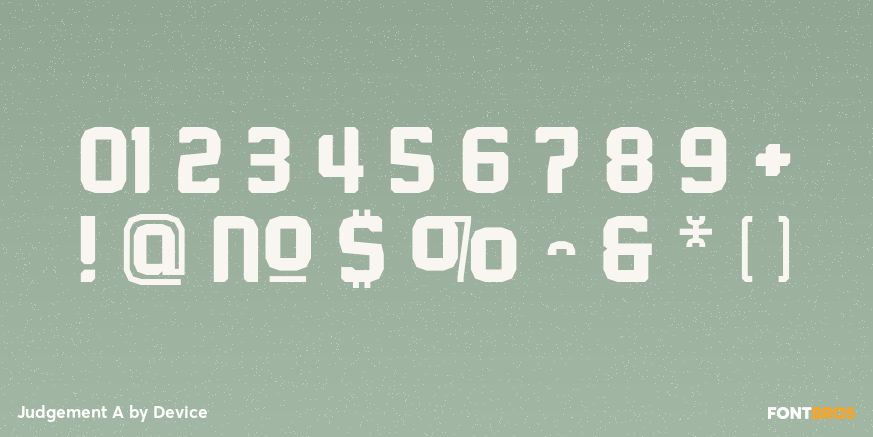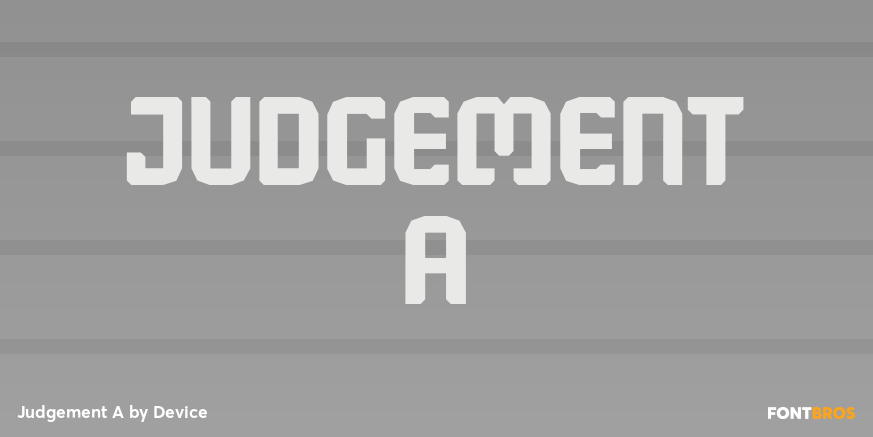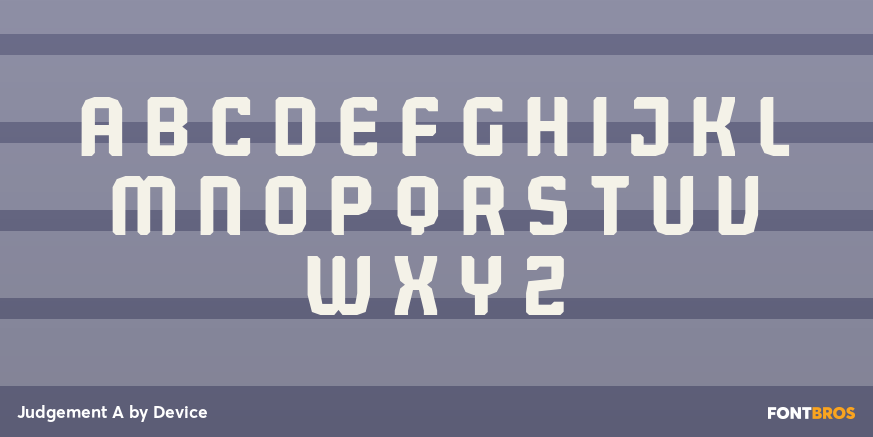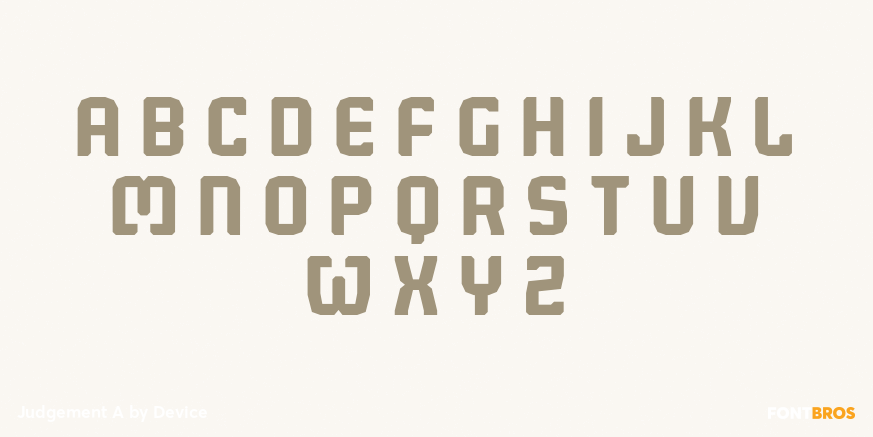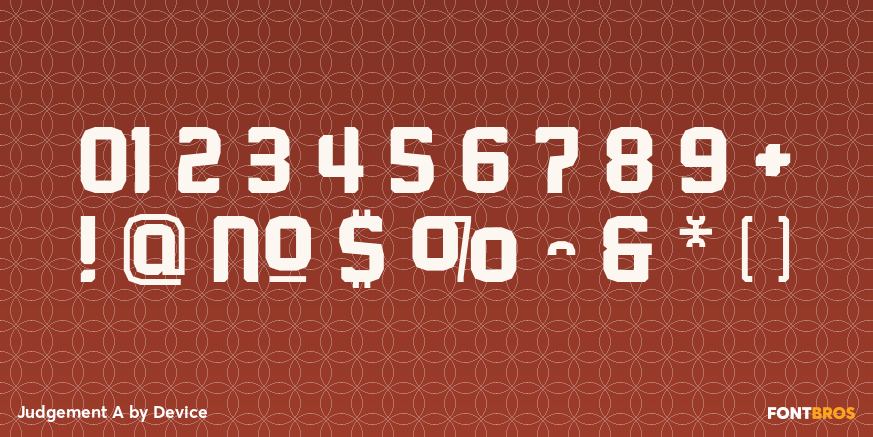
Judgement A
Font Family by Device Fonts
Judgement A is a futuristic sans serif family with a sharp, forward-driving feel. Its heavy weights and matching italics give the design a bold, mechanical rhythm that reads as sleek, forceful, and distinctly contemporary.
Offered by Device, this family includes 6 styles: Medium, Bold, and Black, each with italic companions. That range makes it easy to build contrast while keeping a consistent voice across headlines, branding systems, posters, packaging, apparel graphics, and other display-focused work.